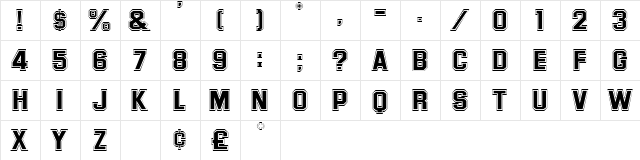
Letter Sweater SansOutline SSi Regular Font Preview
Letter Sweater SansOutline SSi Regular
Design Context for Letter Sweater SansOutline SSi Typeface
Letter Sweater SansOutline SSi brings ornamental detail and strong personality to headlines and identities, where visual impact matters more than quiet functionality.
Font Pairing: Pair with a clean neutral sans-serif for body copy to let Letter Sweater SansOutline SSi's character lead without overwhelming the composition.
Pro Tip: Use Letter Sweater SansOutline SSi exclusively at display sizes — it was designed to be seen, not read at length. Let a neutral companion handle body copy.